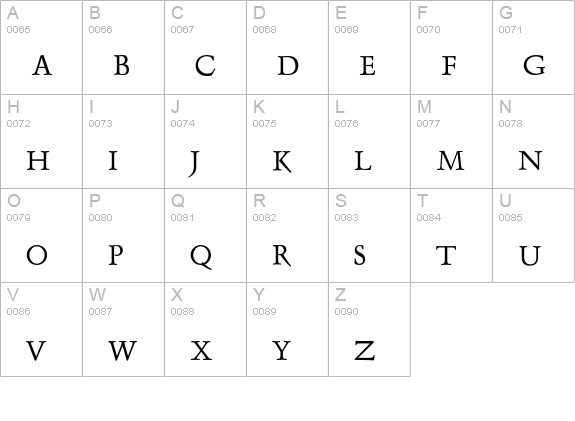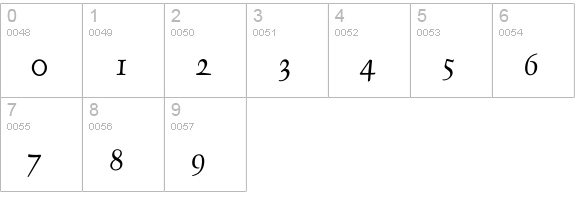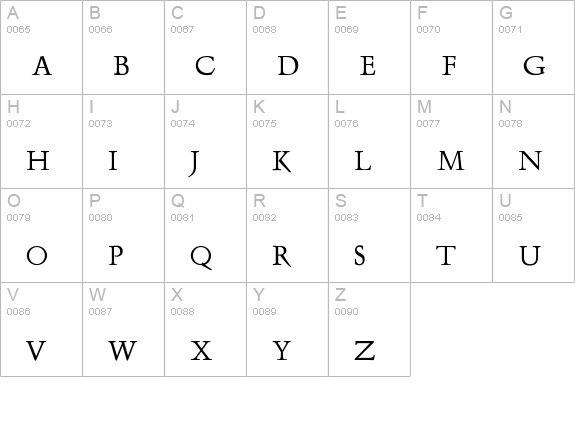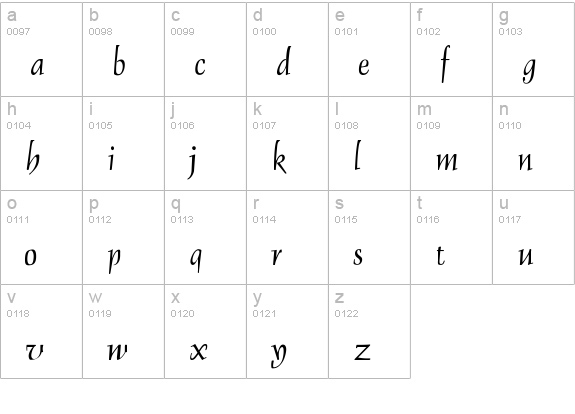
Flipper Font Details
Introducing Flipper font, a whimsical and playful typeface perfect for adding a touch of fun to your designs. With its charming curves and unique style, Flipper font is sure to grab attention and bring a sense of joy to any project. This font is perfect for branding, invitations, posters, and more. Best of all, Flipper font is completely free to download at FontsMarket.com, making it easily accessible for all your creative needs. Don't miss out on this delightful font that will surely make your designs stand out!